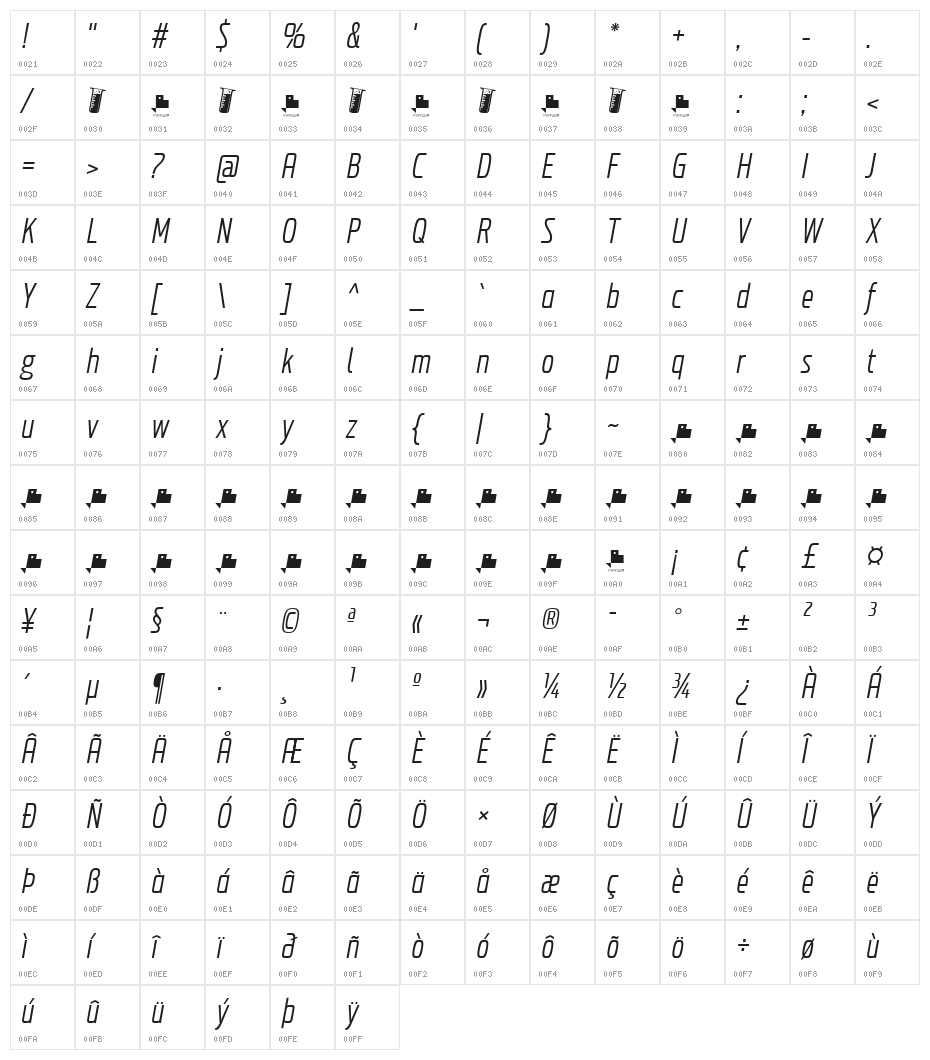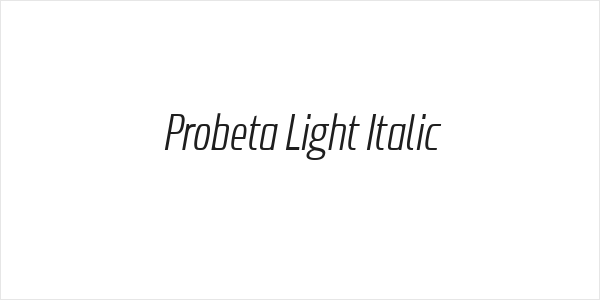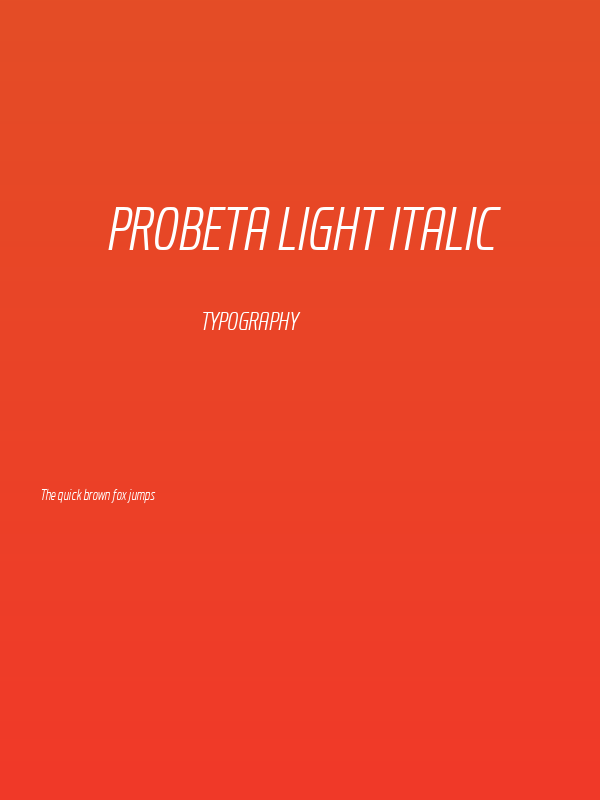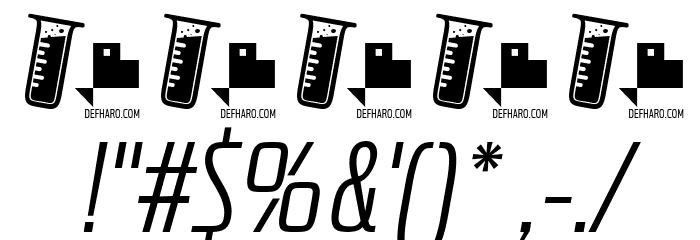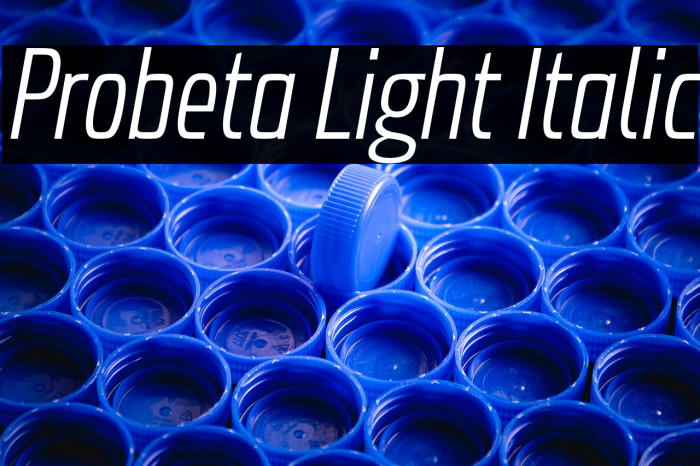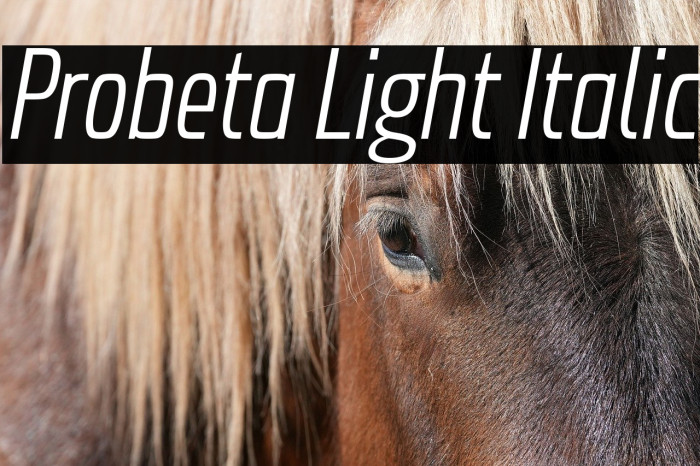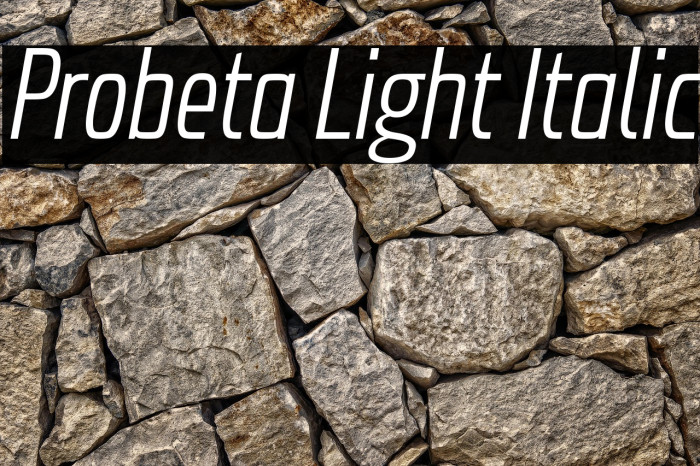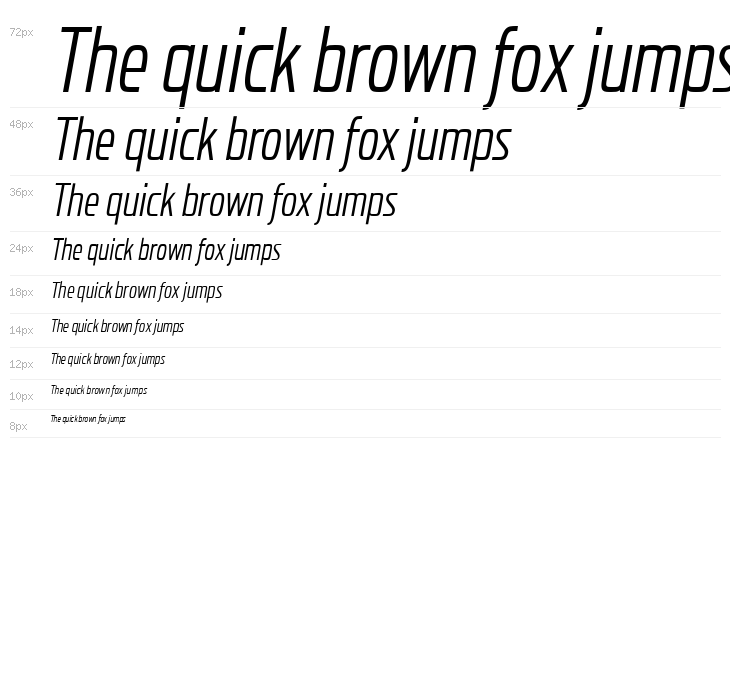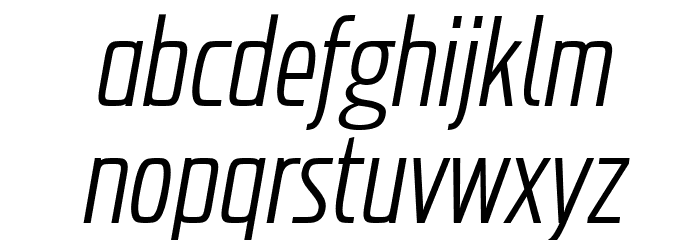
Probeta Light Italic Font
Probeta Light Italic Description
This font features a sleek and modern design with a light weight and italic style. The characters are slightly condensed, giving it a streamlined appearance. The strokes are consistent and smooth, with a medium contrast that enhances readability. The font's overall aesthetic is contemporary and professional, making it suitable for a variety of design applications. The special characters are uniquely styled, adding a touch of creativity to the font's clean lines.
| Proposed Projects | Ideal for branding, advertising, and editorial design projects that require a modern and professional look. |